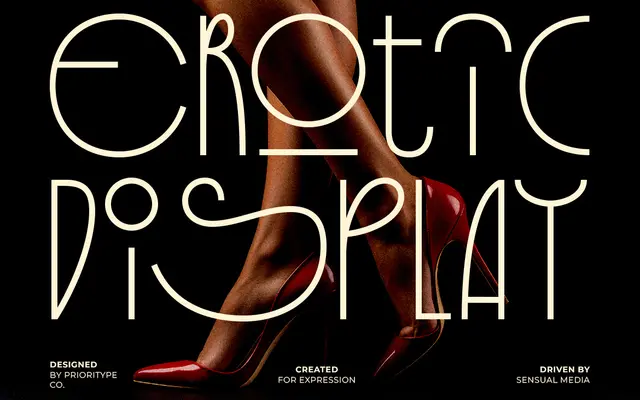
Erotic Display
Prioritype · 2024
A fashion-oriented display face from Prioritype Co, trading on curves and editorial flair for poster and branding work.
Built for high-contrast, attention-seeking layouts, the design leans on rounded, sensuous letterforms suited to cosmetics, fashion editorial and premium branding. It ships in a single weight with OTF, TTF and WOFF files. The aesthetic sits somewhere between retro glamour and contemporary minimalism, though the execution is fairly generic within its niche.
Described explicitly as a display font with sensuous curves and striking lines aimed at posters, branding and magazines, placing it firmly in the fashion display category.